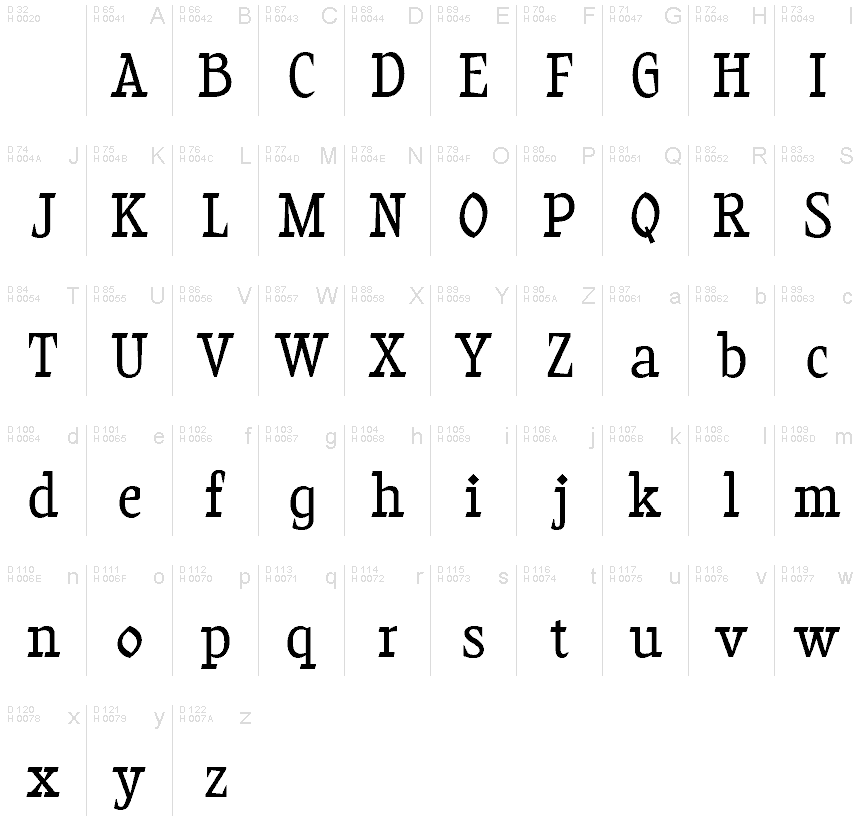
CS Denton Regular Demo
CS Denton font by Craft Supply Co. presents a striking balance between contemporary appeal and sophistication. Featuring distinctive forms, this serif font evokes both a modern elegance and historic vibe, making it eye-catching in header displays and legible in smaller body text.